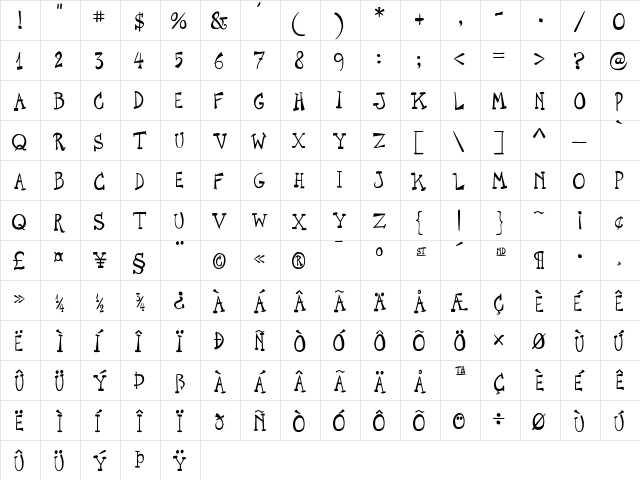
P22Cage Regular
Design Context for P22Cage Typeface
P22Cage is a composed and adaptable typeface that performs quietly and consistently across a wide range of design contexts.